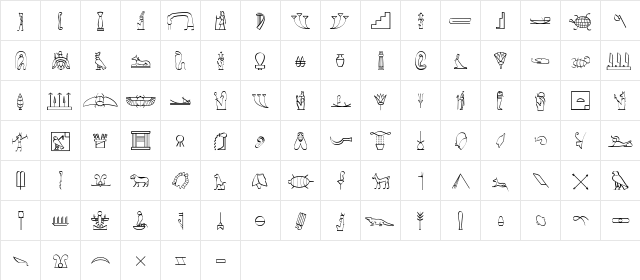
Hieroglyphic Decorative
Design Context for Hieroglyphic Typeface
Hieroglyphic is built around its visual character rather than neutral utility — its distinctive forms are designed to make an impression at display sizes.
Font Pairing: Pair with a clean neutral sans-serif for body copy to let Hieroglyphic's character lead without overwhelming the composition.
Pro Tip: Treat Hieroglyphic as the centrepiece of your typographic hierarchy. One strong heading set in a decorative face can carry an entire layout.